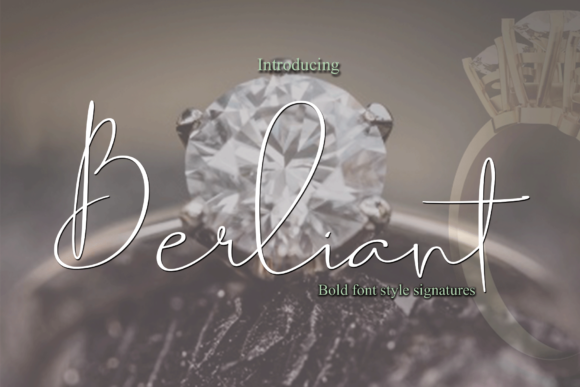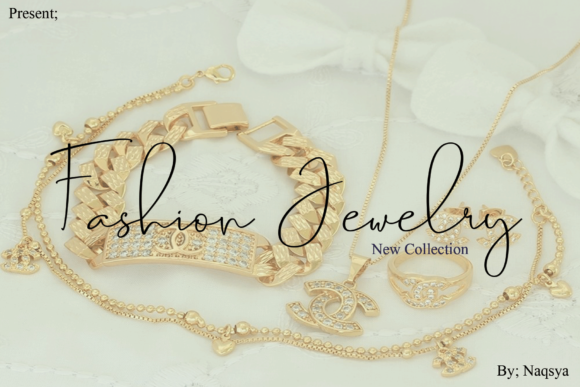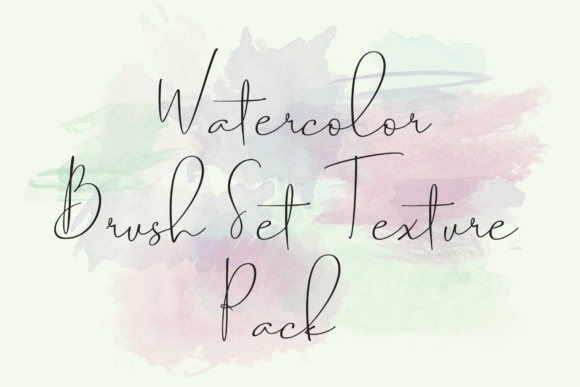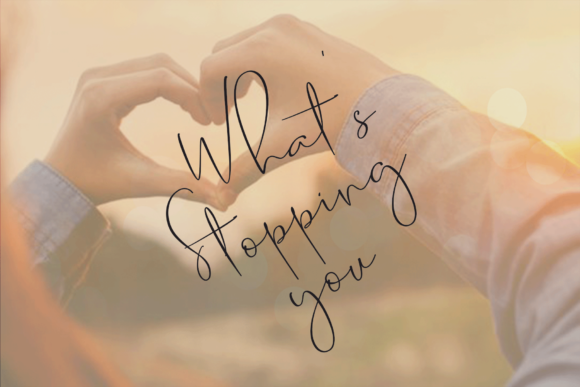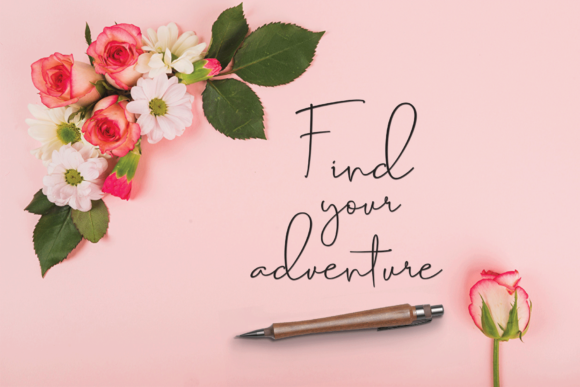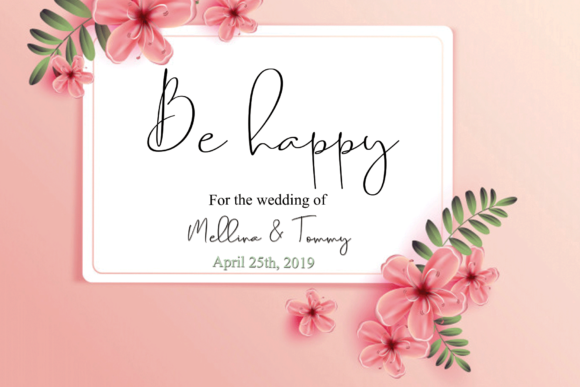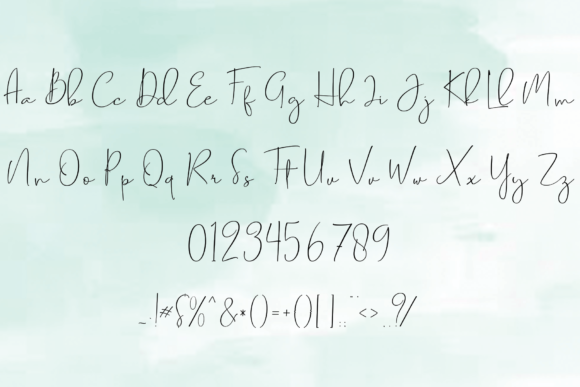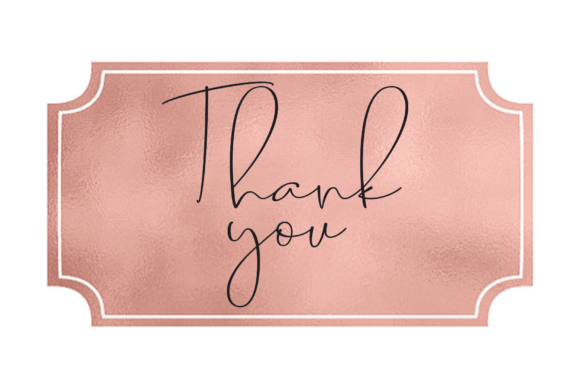
HomeScript FontsBerliant Font Script Fonts Berliant Font FacebookXPinterestWhatsApp Berliant Font Poster 2 Berliant Font Poster 3 Berliant Font Poster 4 Berliant Font Poster 5 Berliant Font Poster 6 Berliant Font Poster 7 Berliant Font Poster 8 About Berliant Font Berliant is a modern typeface designed by real handwriting. Great for a variety of design projects! DOWNLOAD ON CREATIVE FABRICAThis font is sold and delivered by Creative Fabrica. Font Canyon may earn a commission if you buy through this link. People also explored Staligrad Font Freestyle Lettering Font Aliaka Rimon Font Agatha Font Govis Ranic Font The Fables Knight Font Strong Mellow Font Green Emoji Font Gilligan Coast Font 312 0 TagsBerliant Font Previous articleDelphine FontNext articleAkod Font LEAVE A REPLY Cancel reply Comment: Please enter your comment! Name:* Please enter your name here Email:* You have entered an incorrect email address! Please enter your email address here Website: Save my name, email, and website in this browser for the next time I comment. Personal Use Free Shnobel Personal Use Free Read more about this font Lost Treasure Personal Use Free Read more about this font Barokah Personal Use Free Read more about this font Equestrain Personal Use Free Read more about this font BLOG Best Fonts for YouTube Videos: Make Your Thumbnails Stand Out Best Fonts for YouTube Videos: Make Your Thumbnails Stand Out Choosing the right font can make a massive difference in how your YouTube videos perform.... Using Fonts in Digital Marketing: Tips to Strengthen Your Brand Identity Where to Buy American Fonts Online in 2024 Top 7 Google Fonts Alternatives for Faster and Privacy-Friendly Web Design (2025)